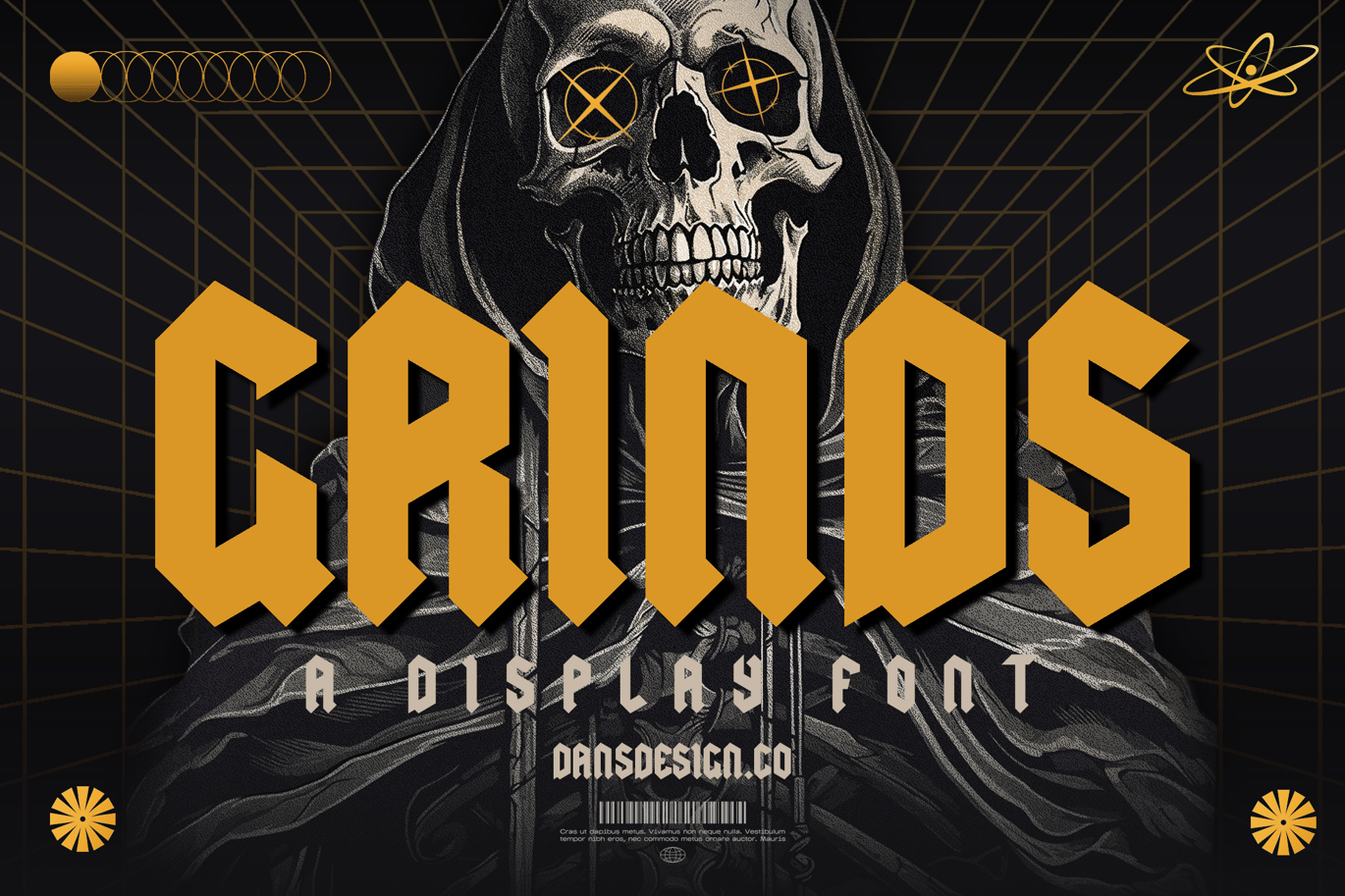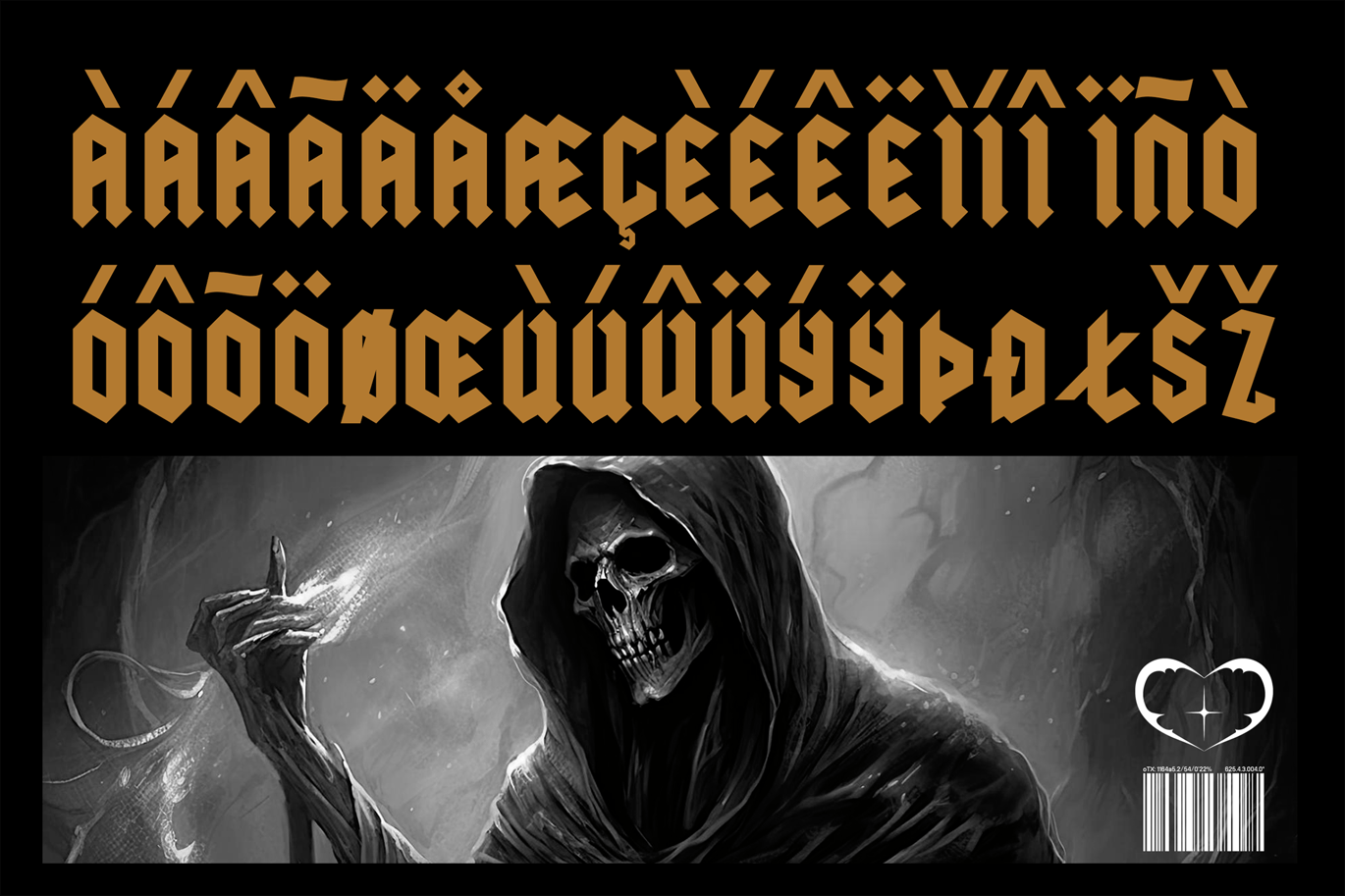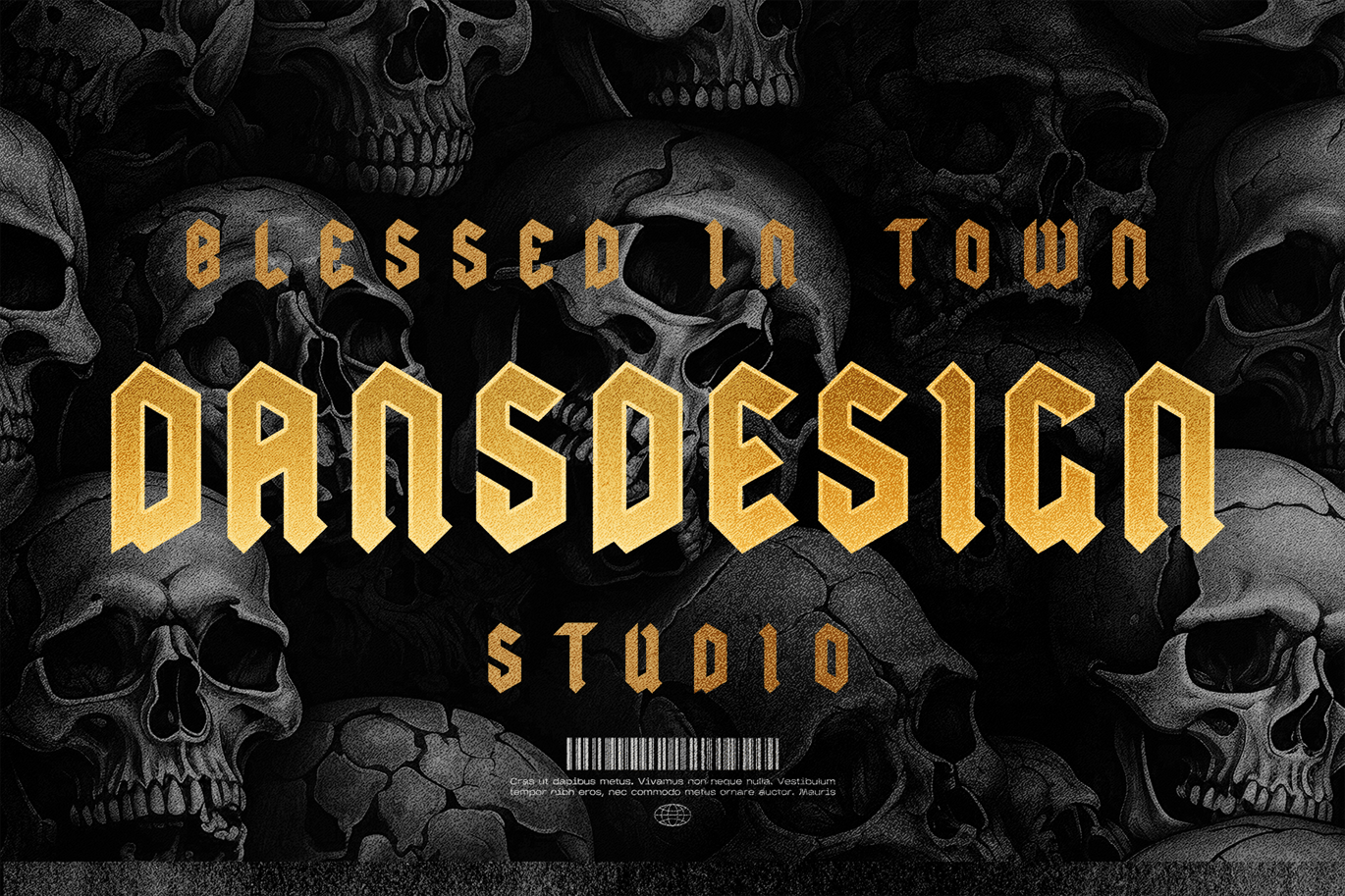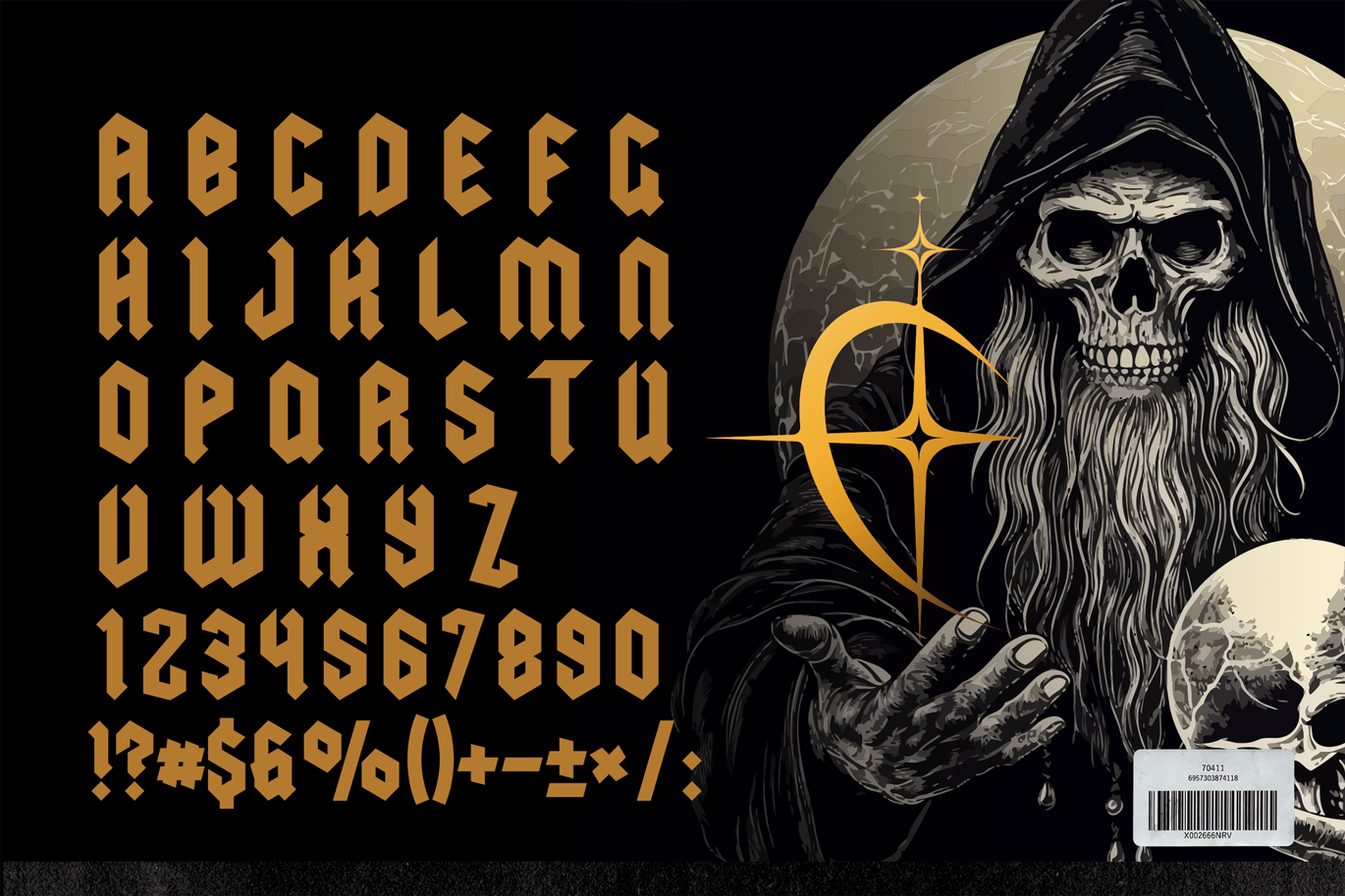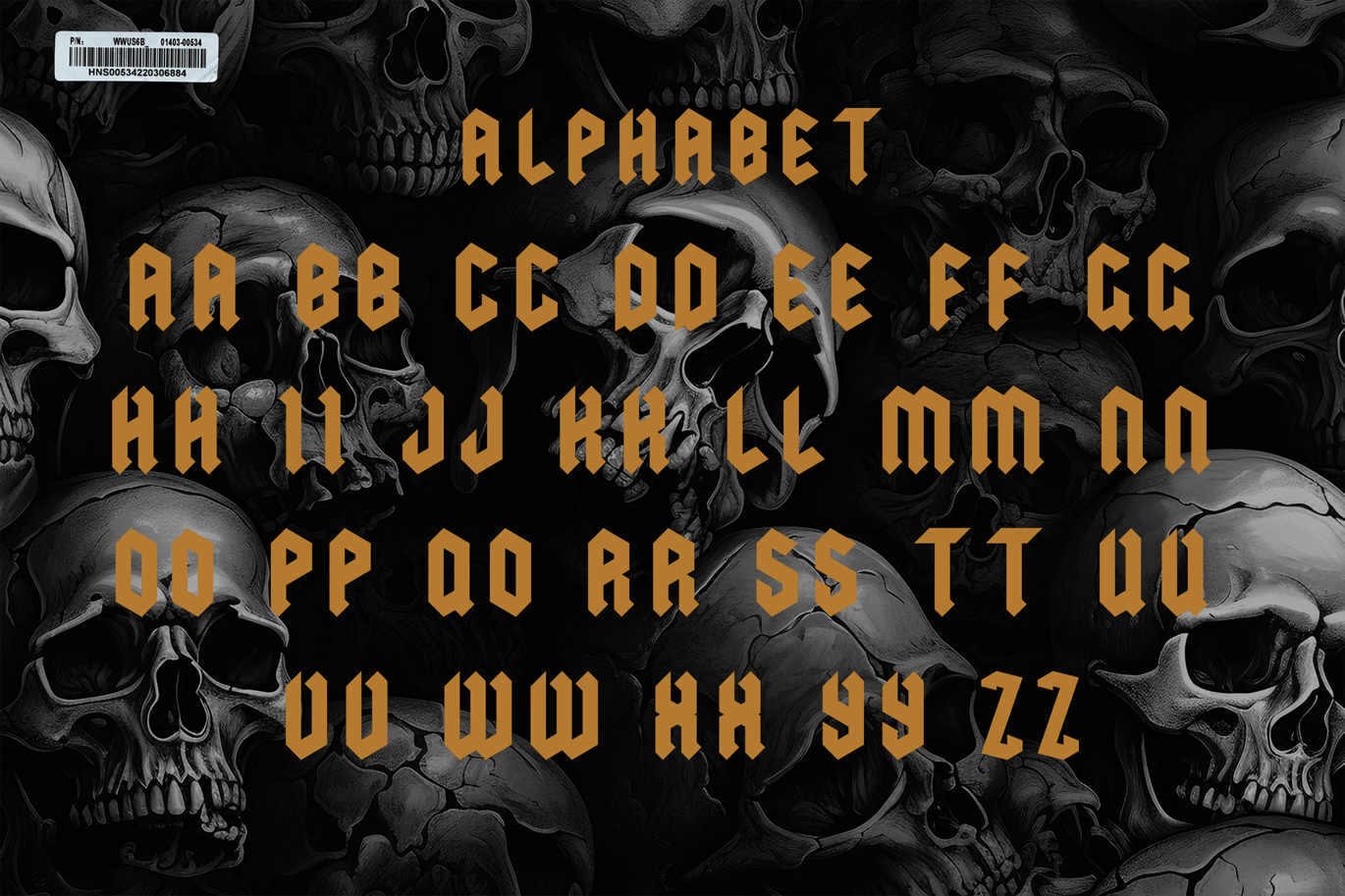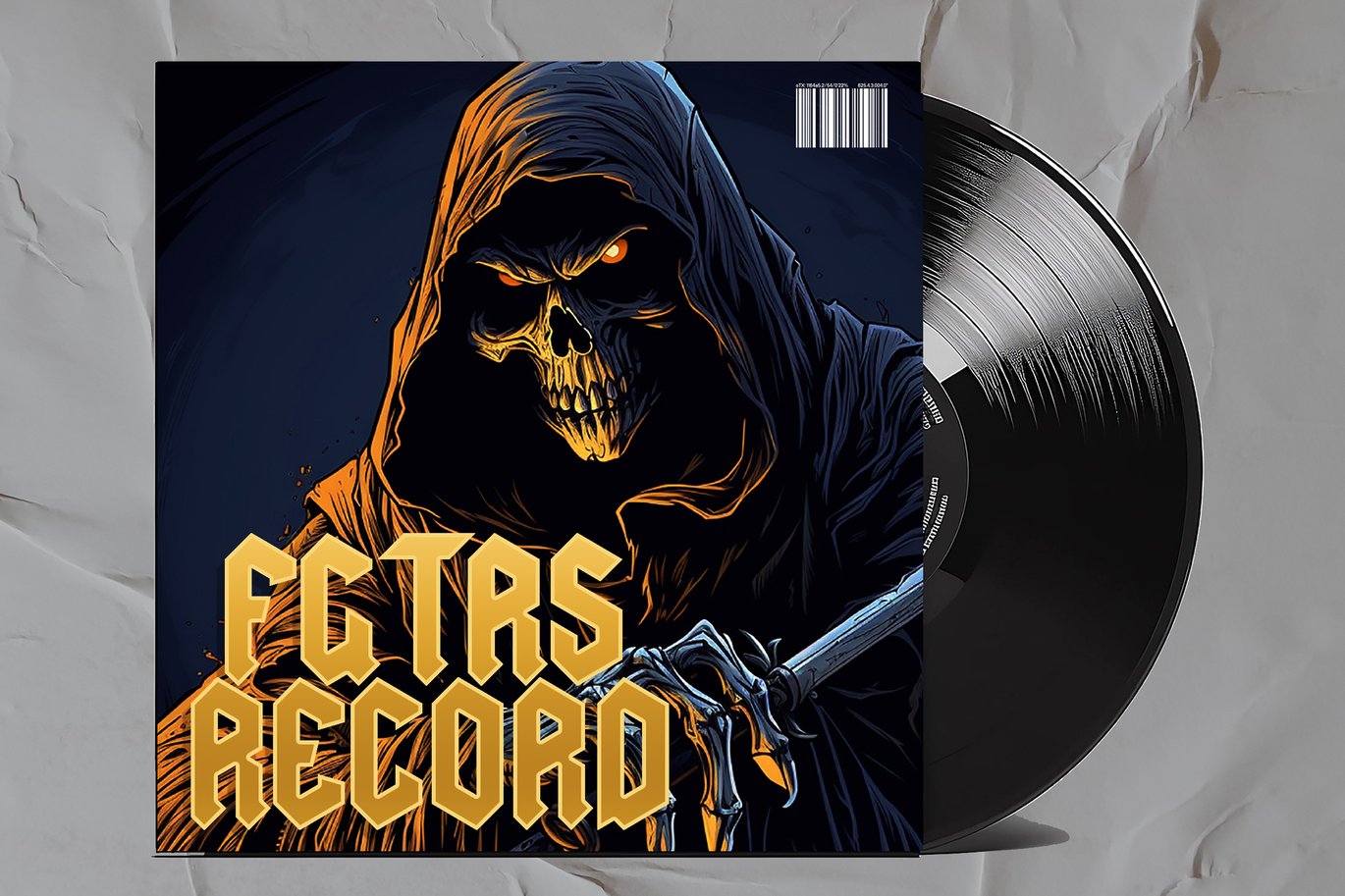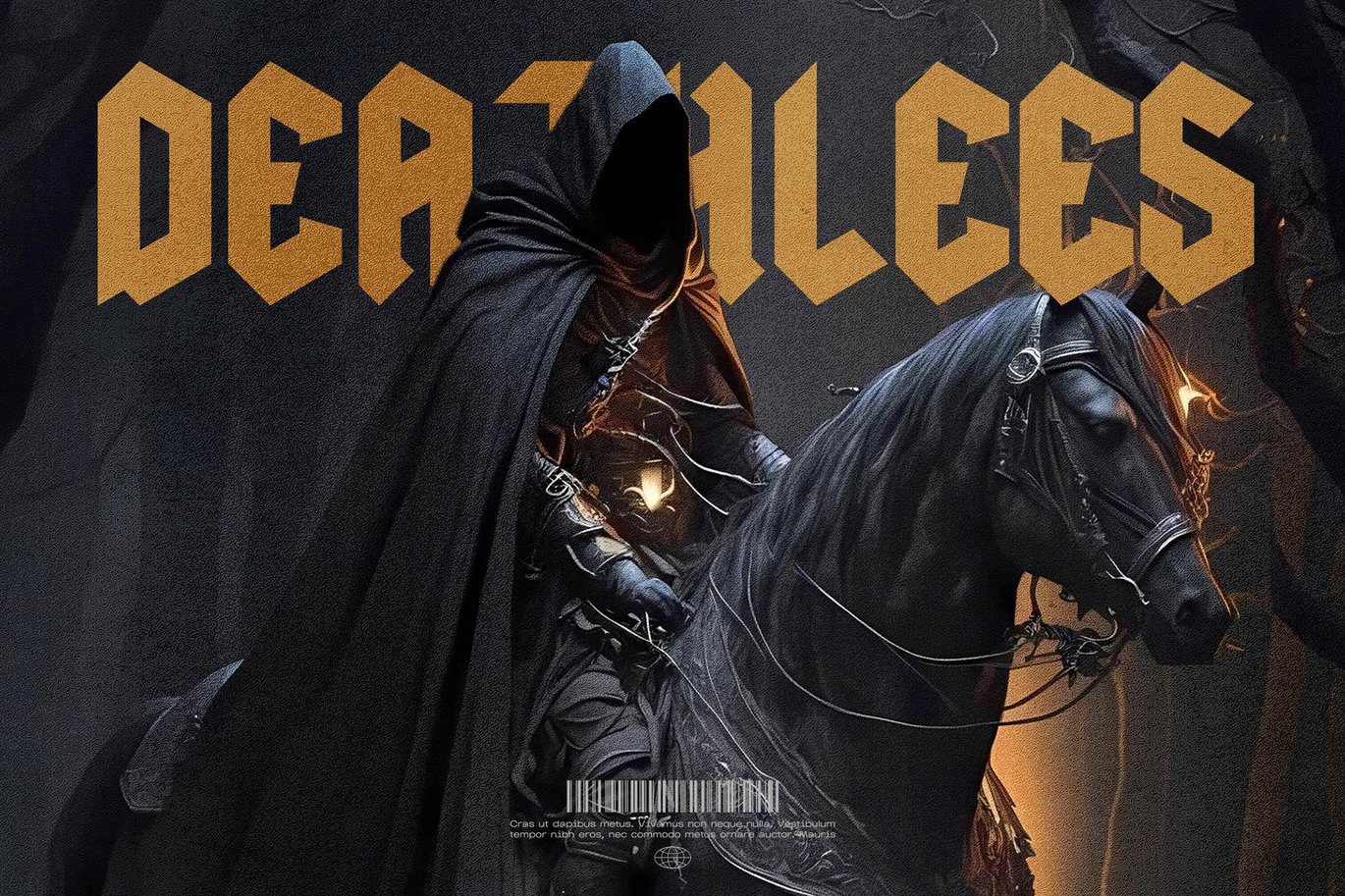
Grind Modern Blackletter Metal Display Font
GRIND Modern Blackletter Metal Display Font
GRIND Modern Blackletter Metal Display Font a distinct, highly detailed, and chic Blackletter font.
It would make a great choice for exquisite retro-urban designs, tattoo business branding, logos, vintage designs, movie, poster, apparel, illustration, and more.